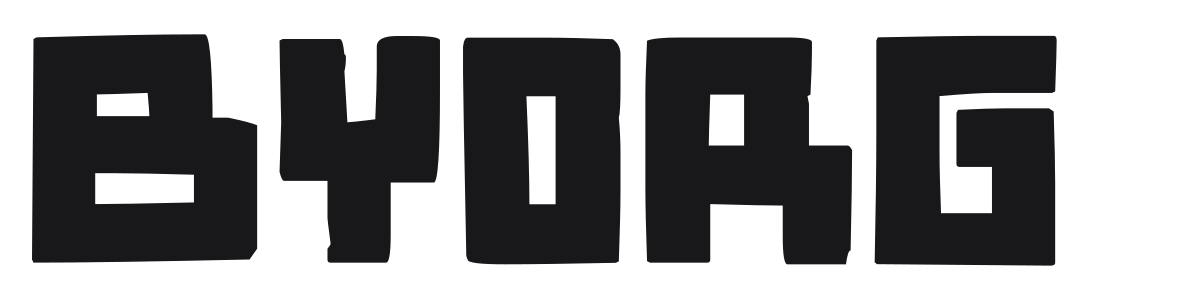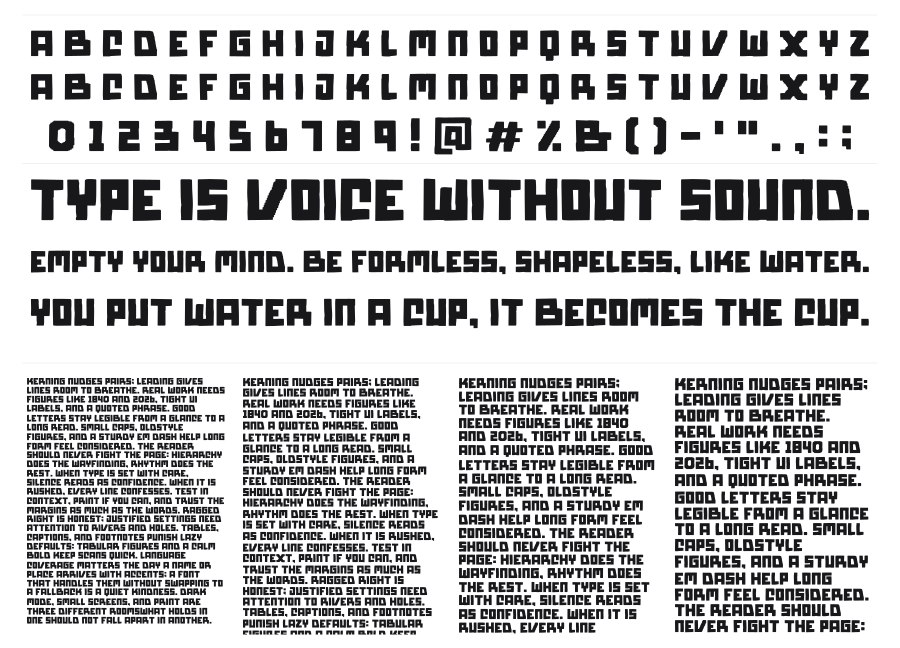
Byorg
Byorg is a heavy square techno display font built from rigid rectangular strokes with sharp corners and zero stroke contrast. Every character reads like a digital block, giving it a raw, machine-made authority that works well in gaming titles, tech branding, and high-impact headlines. The weight is extreme, so it commands attention at large sizes.